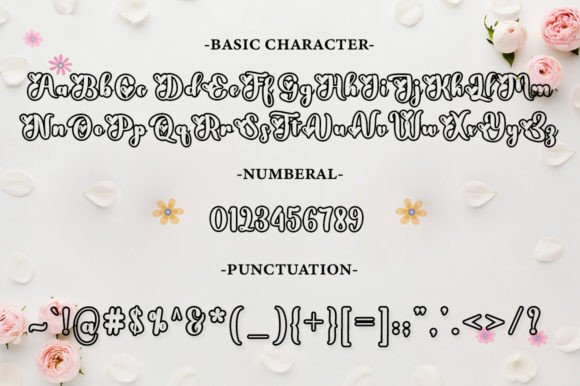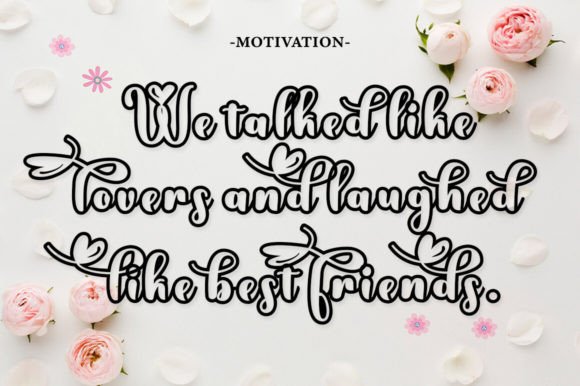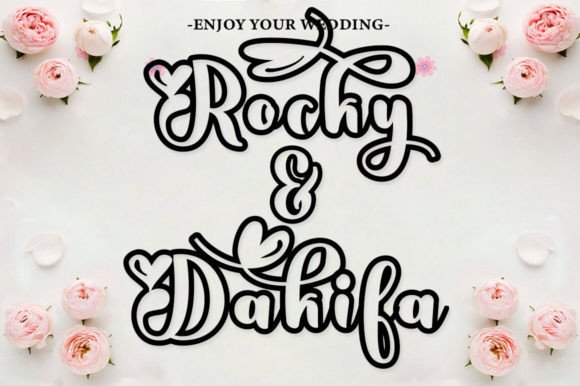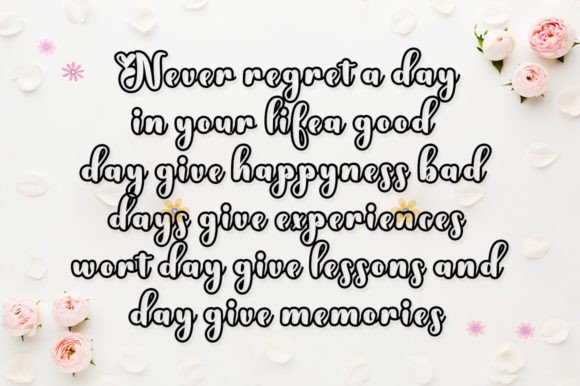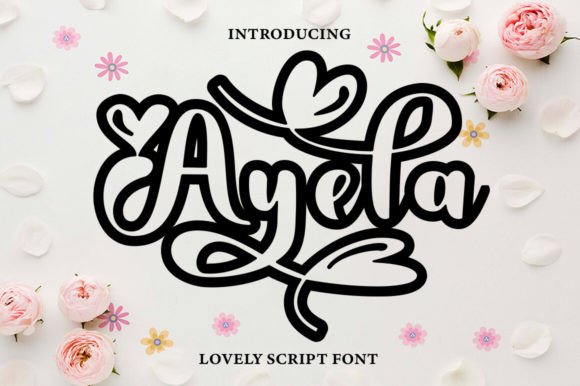
Ayela Outline Font: Elevate Your Designs with a Cute and Versatile Handwritten Font
Are you a designer or crafter looking for a font that can add a touch of warmth and personality to your projects? Look no further than the Ayela Outline Font. This beautiful, handwritten font is perfect for anyone who wants to create stunning designs that are both romantic and playful.
What Makes Ayela Outline Font Special?
Ayela Outline is a cute, versatile, and flexible handwritten font that is sure to turn any of your project ideas into real works of art. Its warm and romantic feel makes it perfect for a wide range of design projects, from wedding invitations and party decorations to social media graphics and branding materials.
One of the things that sets Ayela Outline apart from other fonts is its unique outline style. The font features a delicate outline that adds a touch of elegance and sophistication to any design. At the same time, the font remains playful and fun, making it perfect for designers who want to create eye-catching and engaging designs.
Complete with Language Support
Ayela Outline Font is complete with language support, making it a great choice for designers who work with clients from all over the world. Whether you’re designing for a client who speaks English, Spanish, French, or any other language, this font has got you covered.
Ayela Outline Font is perfect for a wide range of design projects, including:
- Wedding invitations and party decorations
- Social media graphics and branding materials
- Blog and website designs
- Print-on-demand products, such as t-shirts and mugs
- Stationery and paper crafts
Why Choose Ayela Outline Font?
There are many reasons why designers and crafters love Ayela Outline Font. Here are just a few:
- Unique and eye-catching design: Ayela Outline Font features a unique and eye-catching design that is sure to grab attention.
- Versatile and flexible: This font is versatile and flexible, making it perfect for a wide range of design projects.
- Easy to use: Ayela Outline Font is easy to use, even for designers who are new to working with handwritten fonts.
- Complete with language support: This font is complete with language support, making it a great choice for designers who work with clients from all over the world.
If you’re looking for a font that can add a touch of warmth and personality to your designs, look no further than Ayela Outline Font. This beautiful, handwritten font is perfect for designers and crafters who want to create stunning designs that are both romantic and playful. With its unique outline style, PUA coding, and language support, Ayela Outline Font is a great choice for a wide range of design projects.